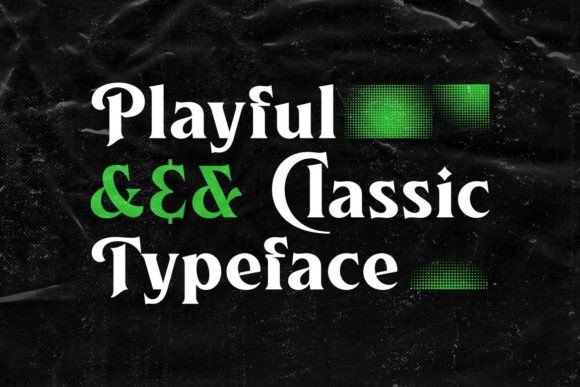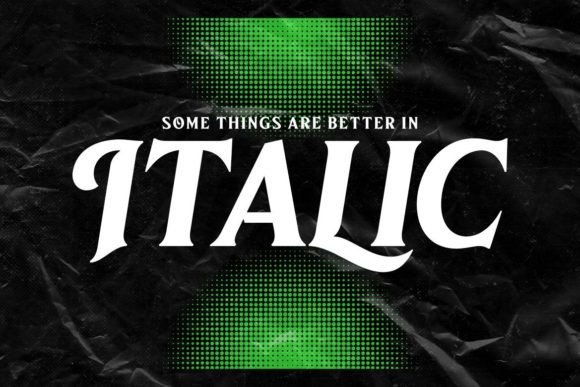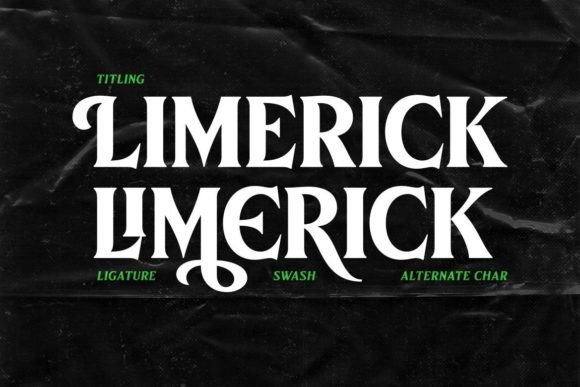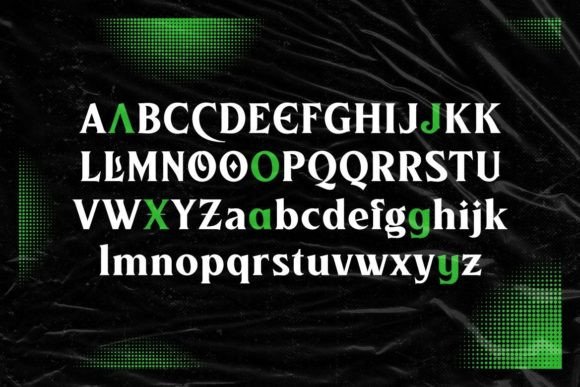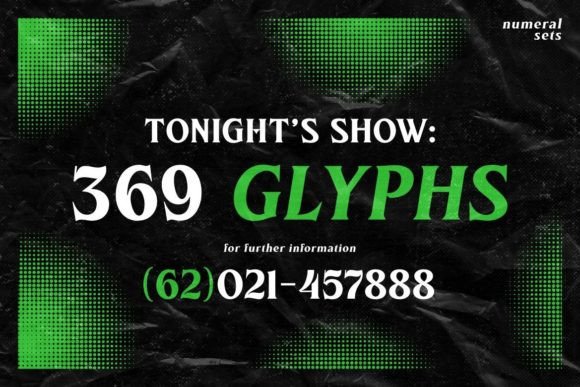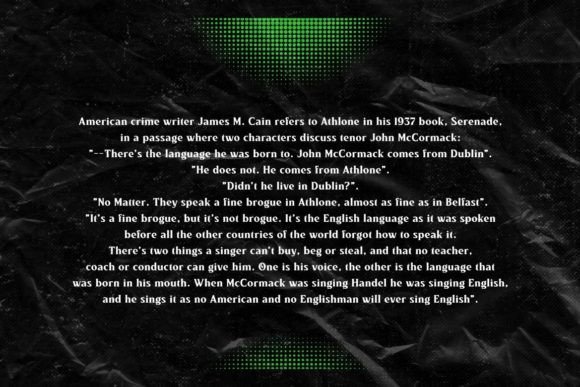
Athlone Font: Elevate Your Designs with a Touch of Vintage Elegance
In the world of typography, fonts play a crucial role in conveying the tone and personality of a design. For designers and crafters looking to add a touch of vintage elegance to their work, the Athlone font is an excellent choice. This display font, inspired by classic letterforms, is meticulously crafted to bring a sense of sophistication and refinement to any project.
The Inspiration Behind Athlone Font
Athlone font draws its inspiration from the timeless beauty of vintage letterforms. With its clean lines, sharp edges, and tempting curves, this font embodies the essence of classic typography. The result is a font that exudes elegance and poise, perfect for designers seeking to create stunning visual compositions.
Design Features of Athlone Font
Athlone font boasts several design features that make it an attractive choice for designers and crafters. Some of its notable features include:
- Mouse-crafted with high attention to detail: Each letterform is carefully crafted to ensure precision and accuracy, resulting in a font that is both visually appealing and highly legible.
- Clean lines and sharp edges: The font’s clean lines and sharp edges give it a crisp, modern look that is perfect for a wide range of design applications.
- Tempting curves: The subtle curves and rounded edges of the font add a touch of warmth and sophistication, making it ideal for designs that require a more elegant approach.
- Available in slanted version: The font comes in both regular and slanted versions, providing designers with more options to experiment with and add variety to their designs.
Best Use Cases for Athlone Font
Athlone font is a versatile typeface that can be used in a variety of design applications. Some of the best use cases for this font include:
- Title/Headline: The font’s bold and elegant design makes it perfect for titles and headlines, where it can help grab the reader’s attention and convey the message with style.
- Logo/Logotype: Athlone font’s unique character and sophistication make it an excellent choice for logos and logotypes, where it can help create a lasting impression and establish brand identity.
- Packaging/Label Designs: The font’s clean and elegant design makes it suitable for packaging and label designs, where it can help add a touch of sophistication and refinement to the product.
Why Choose Athlone Font?
With so many fonts available, why choose Athlone font for your design projects? Here are a few compelling reasons:
- Unique and distinctive design: Athlone font’s vintage-inspired design sets it apart from more generic fonts, making it an excellent choice for designers seeking to create unique and memorable designs.
- High legibility: The font’s clean lines and precise craftsmanship ensure high legibility, even at smaller sizes, making it suitable for a wide range of design applications.
In conclusion, Athlone font is an exceptional choice for designers and crafters looking to add a touch of vintage elegance to their work. With its unique design features, versatility, and high legibility, this font is sure to elevate your designs and help you create stunning visual compositions. Whether you’re working on a title, logo, or packaging design, Athlone font is an excellent choice that is sure to impress.